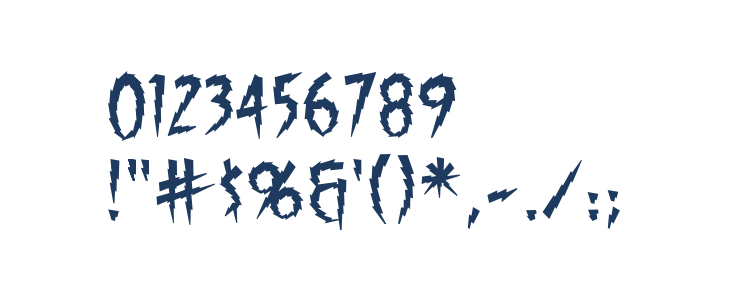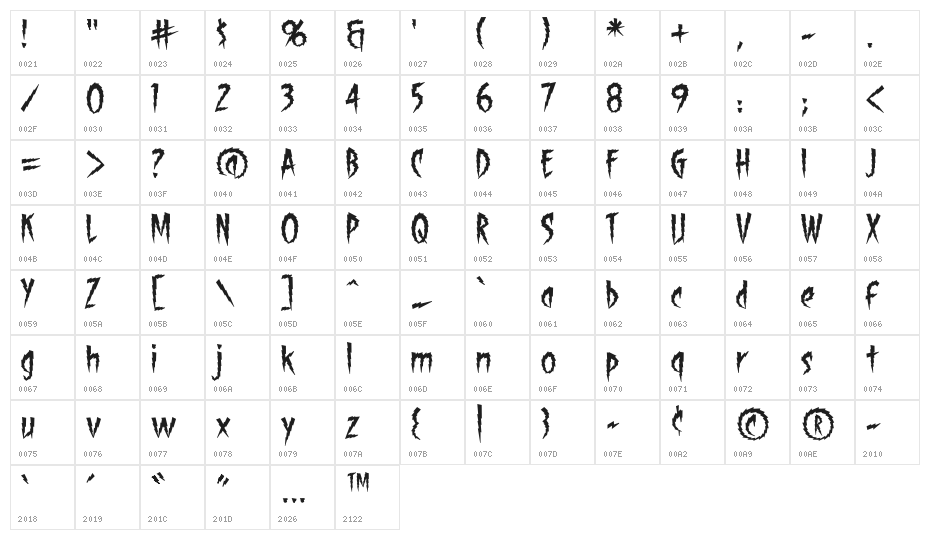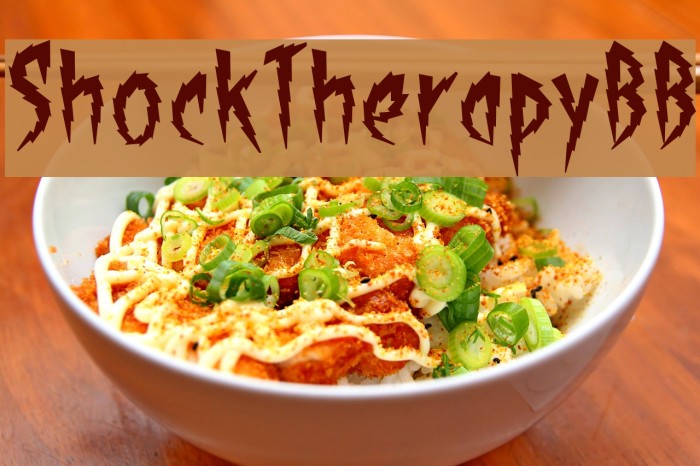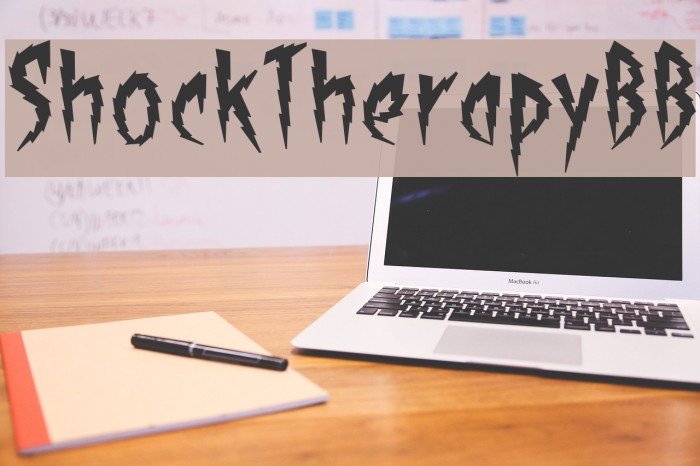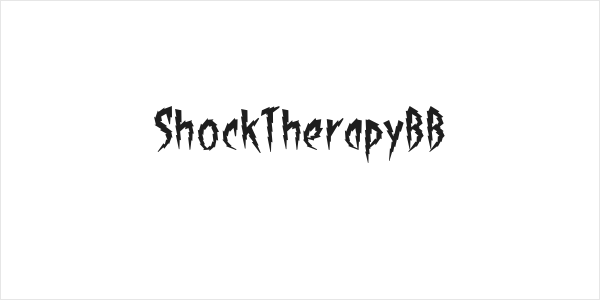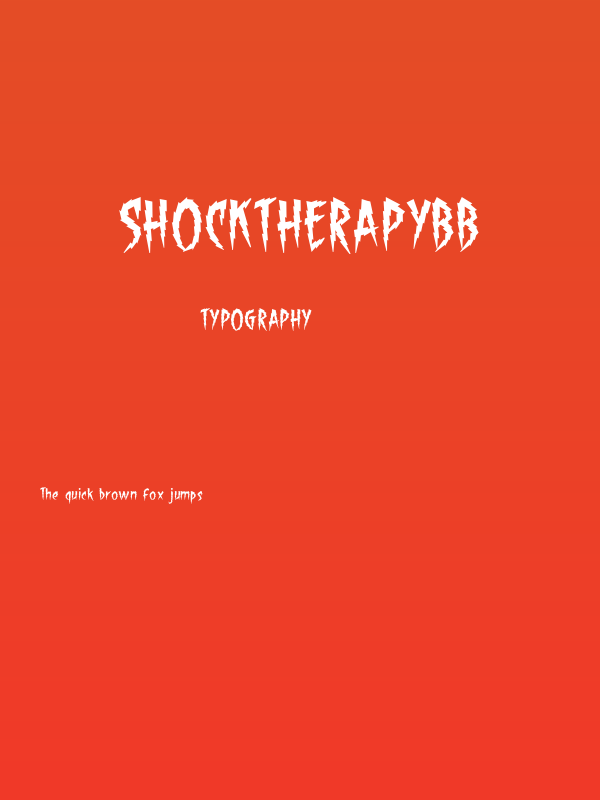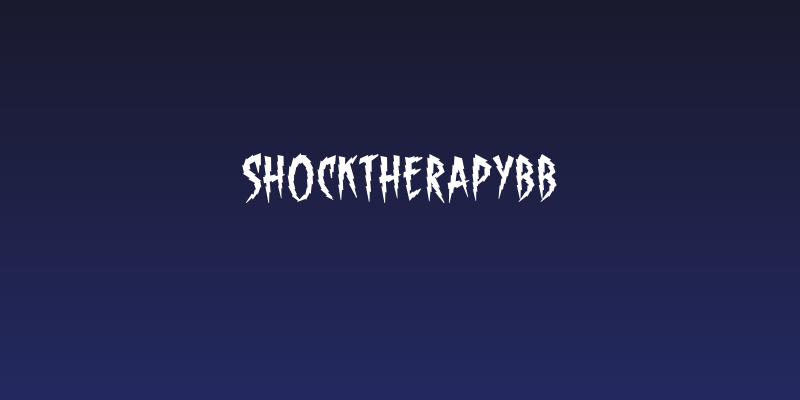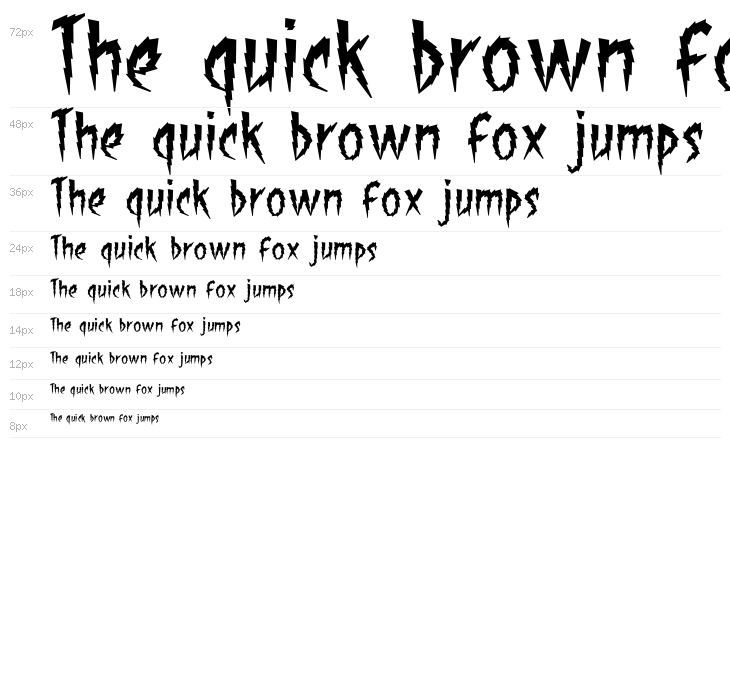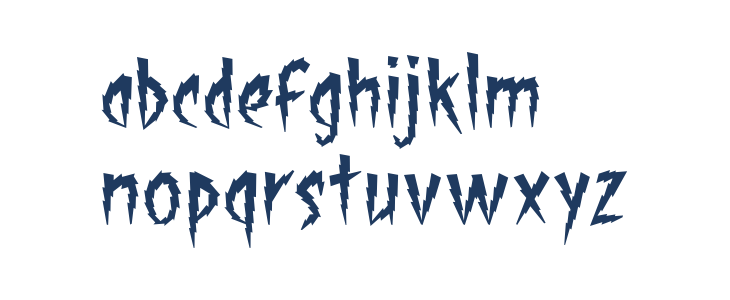
ShockTherapyBB Font
| 用途 | Headlines, Posters, Logos |
| おすすめプロジェクト | Perfect for horror-themed designs, music album covers, Halloween posters, or any project needing a dramatic and edgy typeface. |